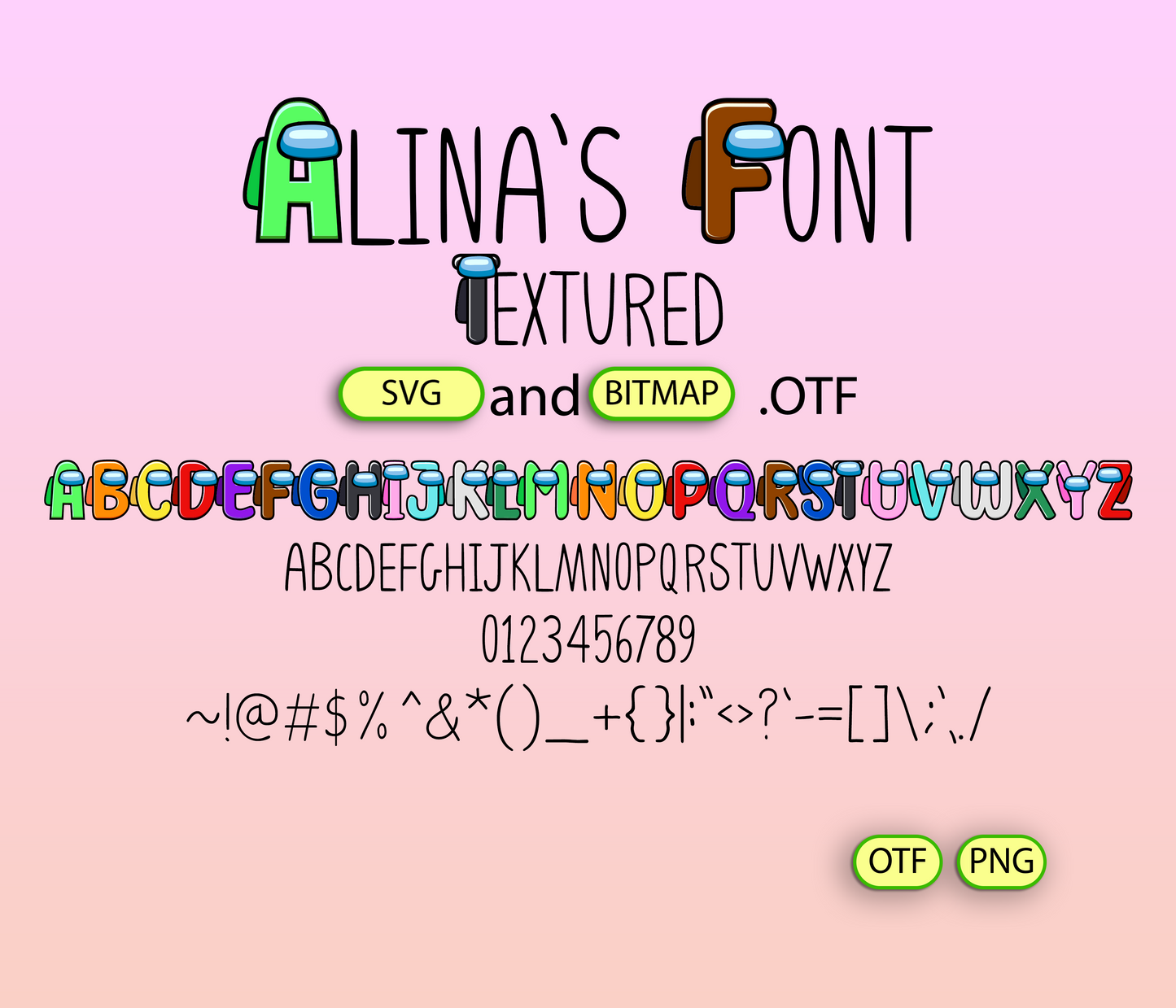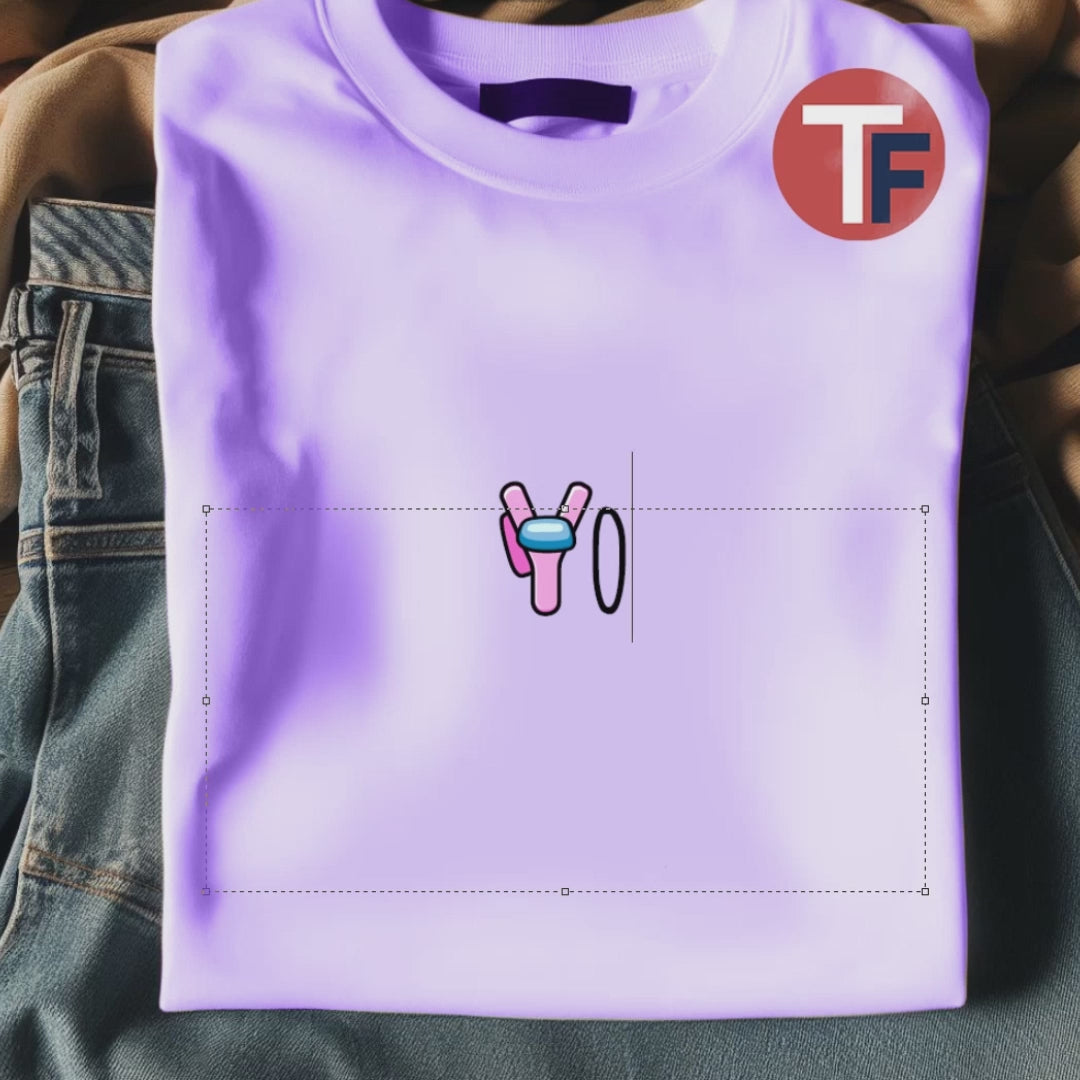
Galactic Adventure Font Textured
Galactic Adventure Font: Inspired by a Popular Game
Step into the world of mystery and intrigue with our Galactic Adventure font. Perfect for fans, event organizers, and designers looking to capture the playful and suspenseful essence of a wildly popular game, this font brings the dynamic spirit to your projects. Whether creating event invitations, themed merchandise, or digital content, our font ensures your projects resonate with the game's fun and excitement.
Our Galactic Adventure-inspired font features bold, rounded characters with a playful, futuristic feel reflecting the game's unique aesthetic. Ideal for:
- Event Invitations: Engaging invites for game nights, birthday parties, or themed events.
- Merchandise Design: T-shirts, posters, and accessories capturing the game's essence.
- Digital Media: Enhance websites, blogs, and social media with vibrant headers and graphics.
- Educational Materials: Presentations, worksheets, and content focused on teamwork, strategy, or gaming.
- Personal Projects: Add fun and mystery to scrapbooking, DIY crafts, or home decor inspired by the game's adventures.
To ensure maximum usability, our Galactic Adventure-inspired font includes both textured and non-textured variants. The non-textured version ensures compatibility with all software, including Canva, enhancing accessibility and ease of use across digital and print platforms.
Many seek an online generator to mimic the look of the game's font. Steer clear! No generator matches the quality of our font, available in textured and simple versions, perfect for cutting machines.
Our Galactic Adventure font not only pays tribute to the beloved game but also empowers you to infuse your designs with its dynamic spirit. Whether crafting promotional materials, designing unique merchandise, or adding a playful touch to personal projects, this font allows you to communicate the fun and excitement of the game. Ready to bring a touch of space adventure and mystery to your projects? This font is your key to vibrant and captivating design.